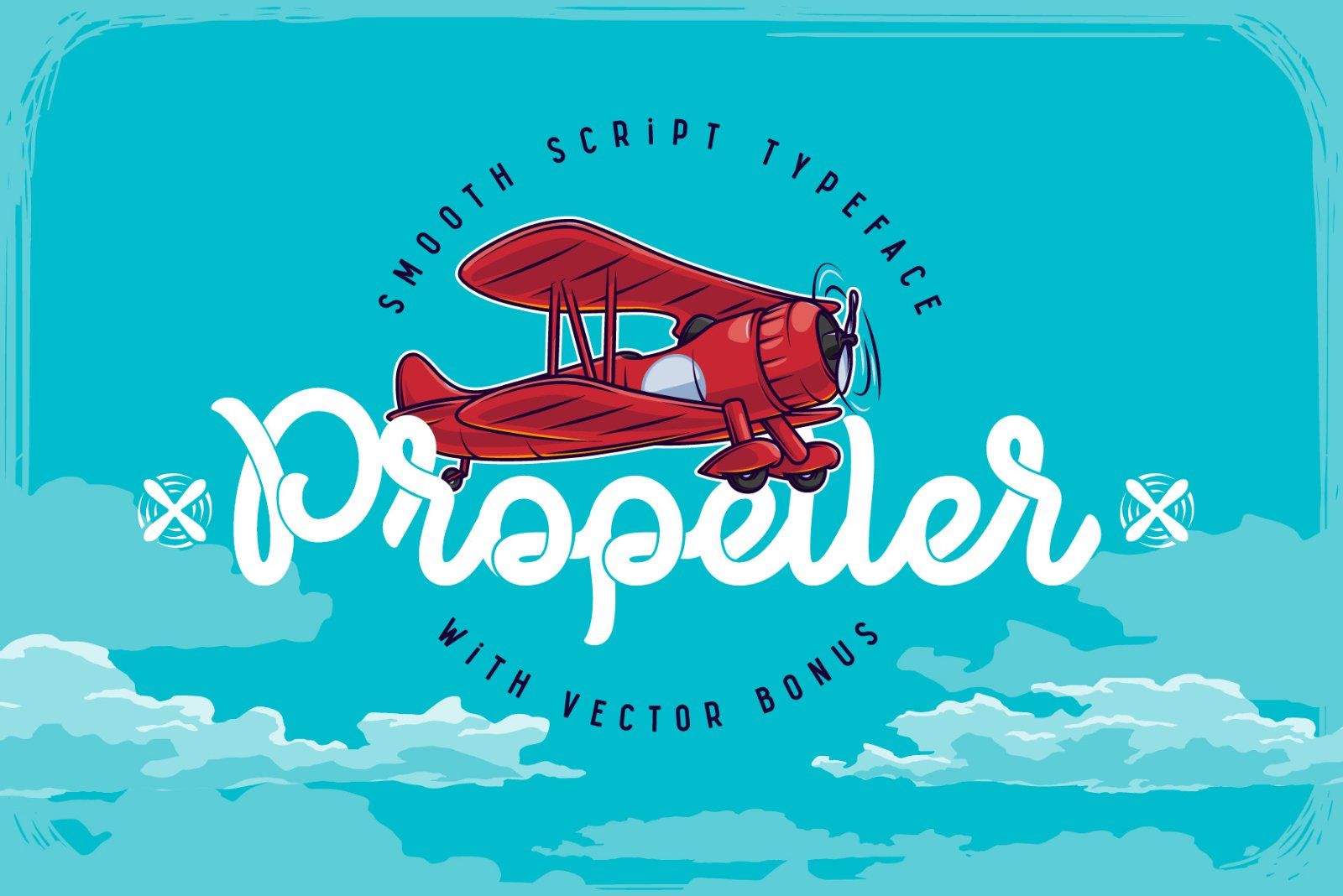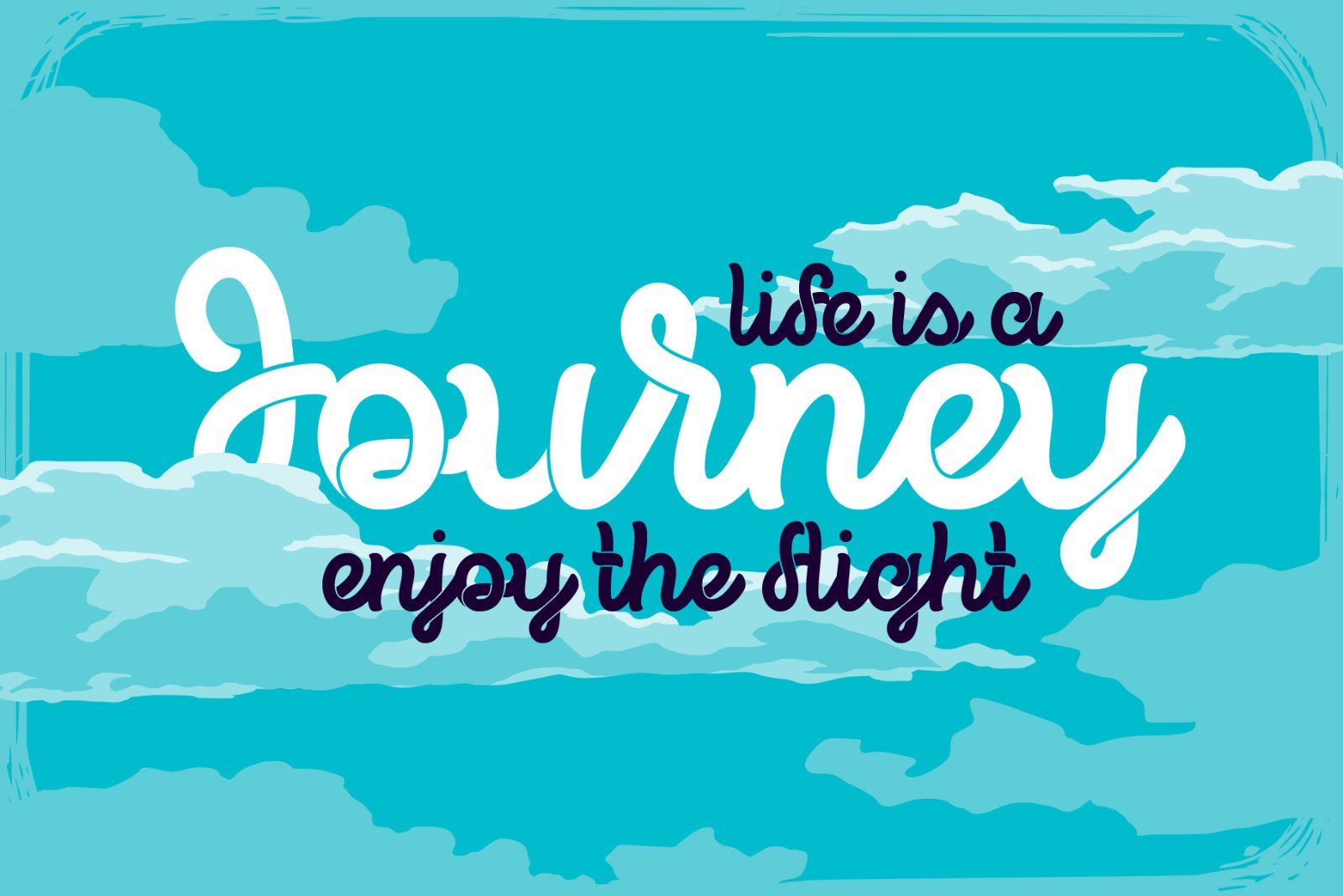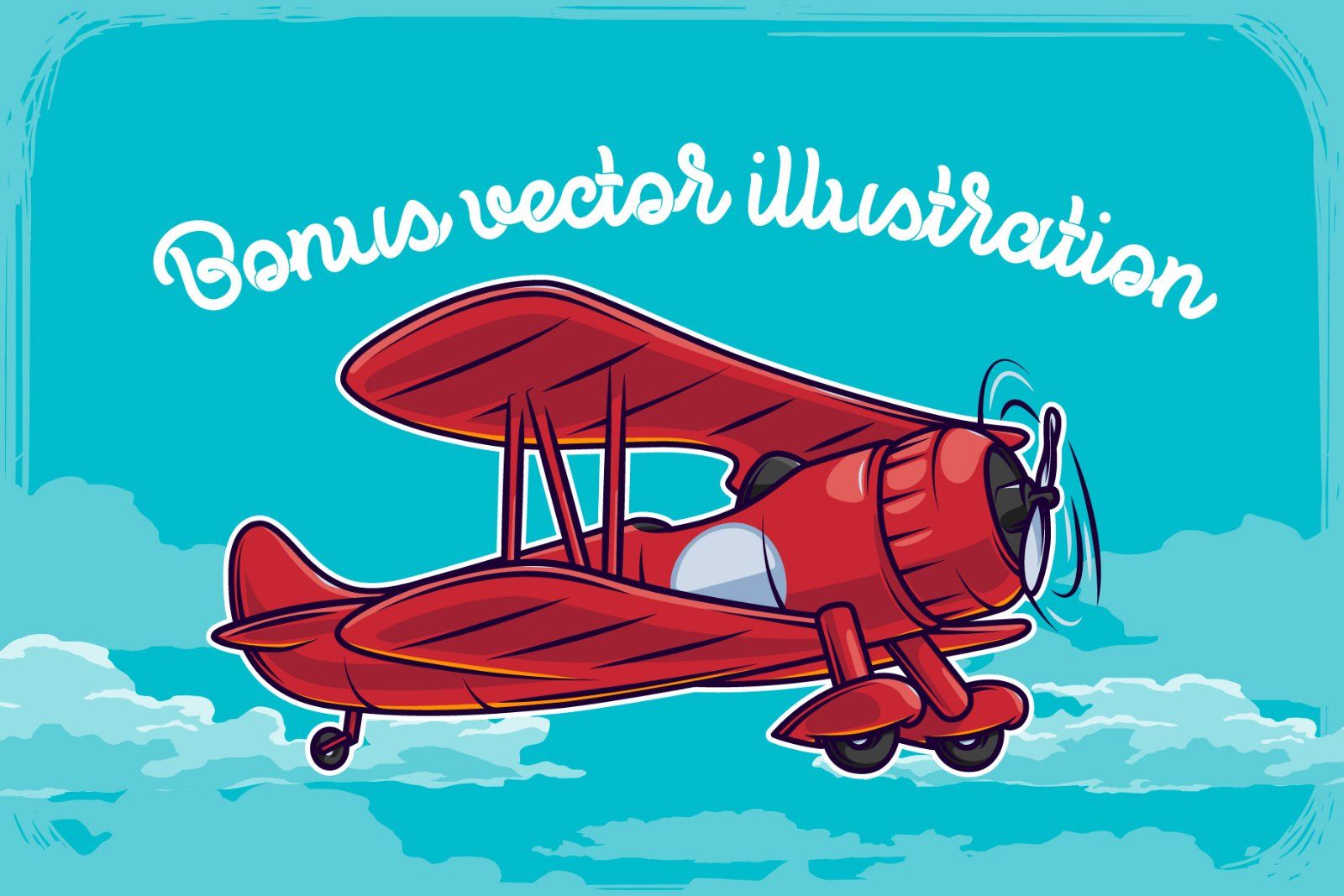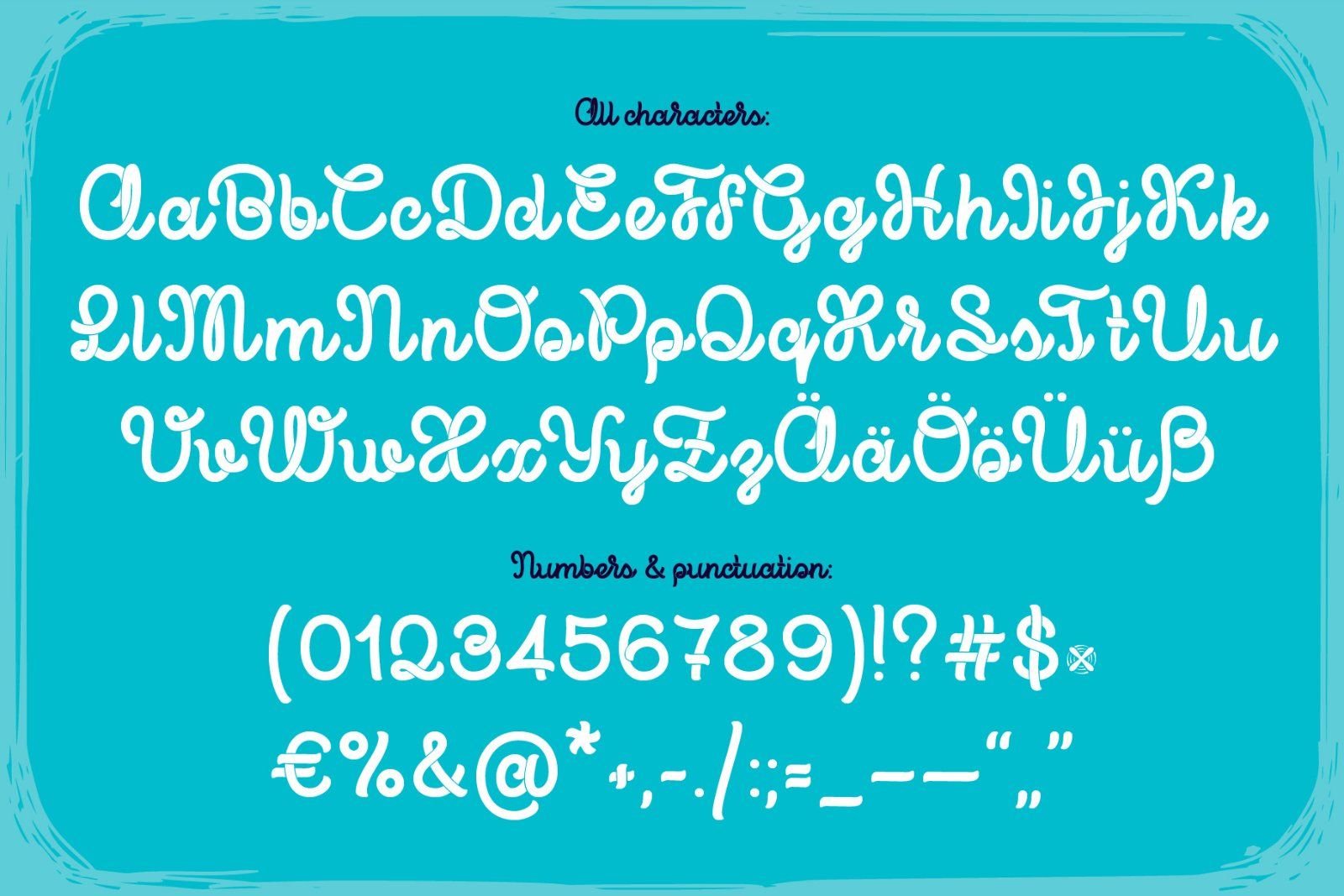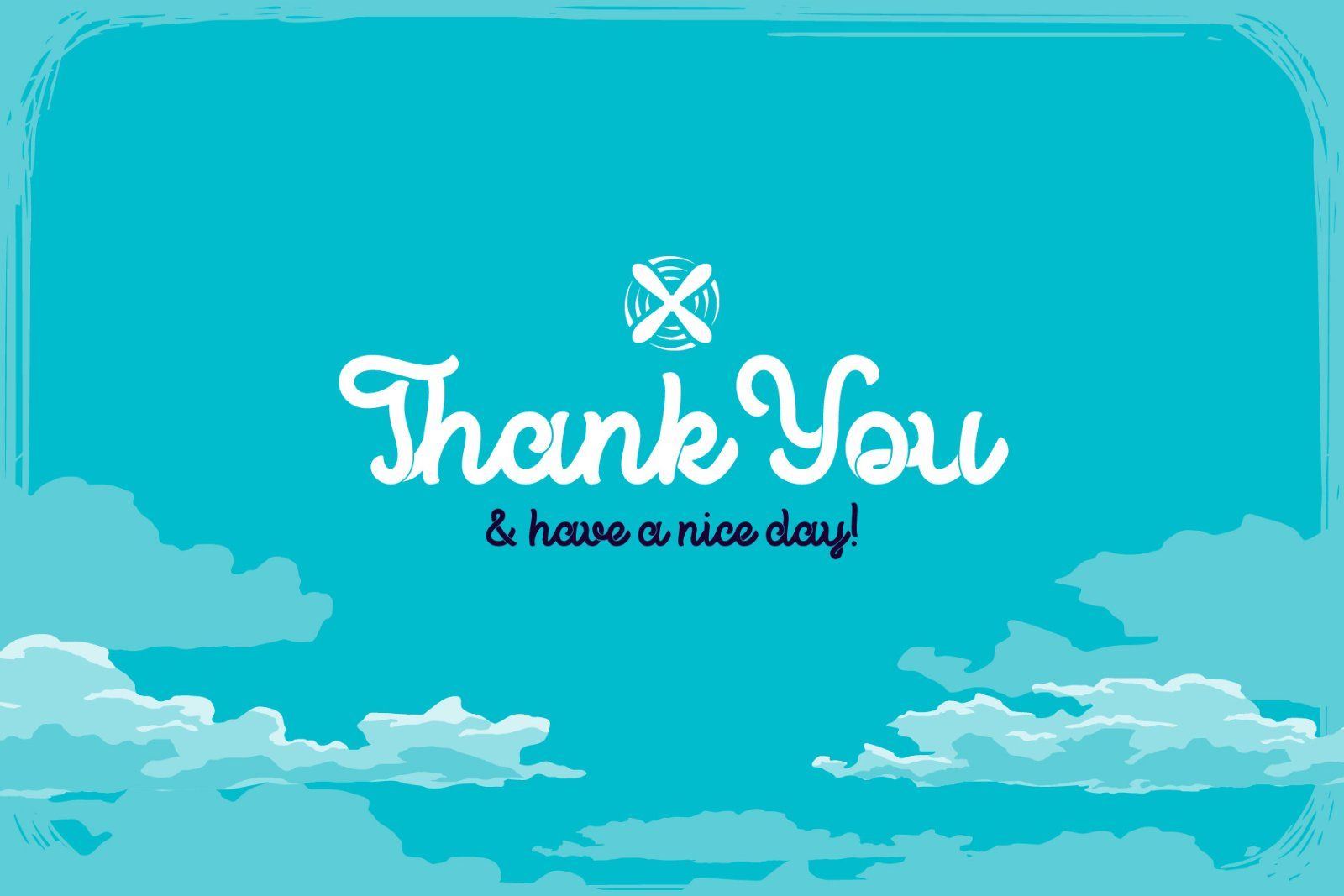
Hi! Introducing a connected script font "Propeller". This font have a smooth shape inspired by vintage aircraft ads. A vector illustration of an old-school biplane is included.